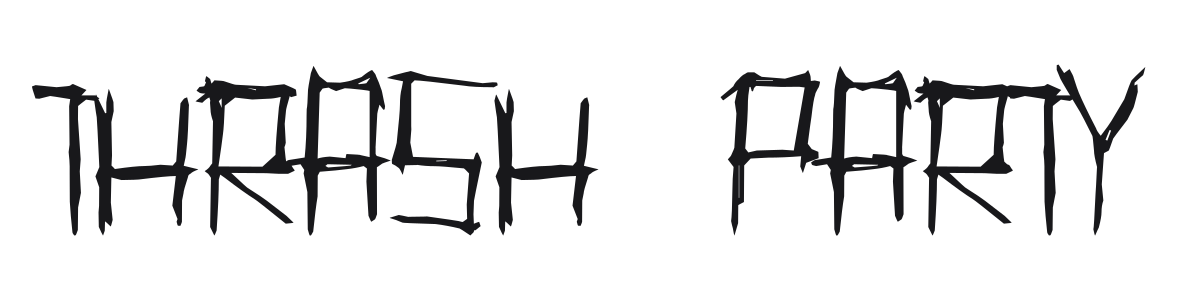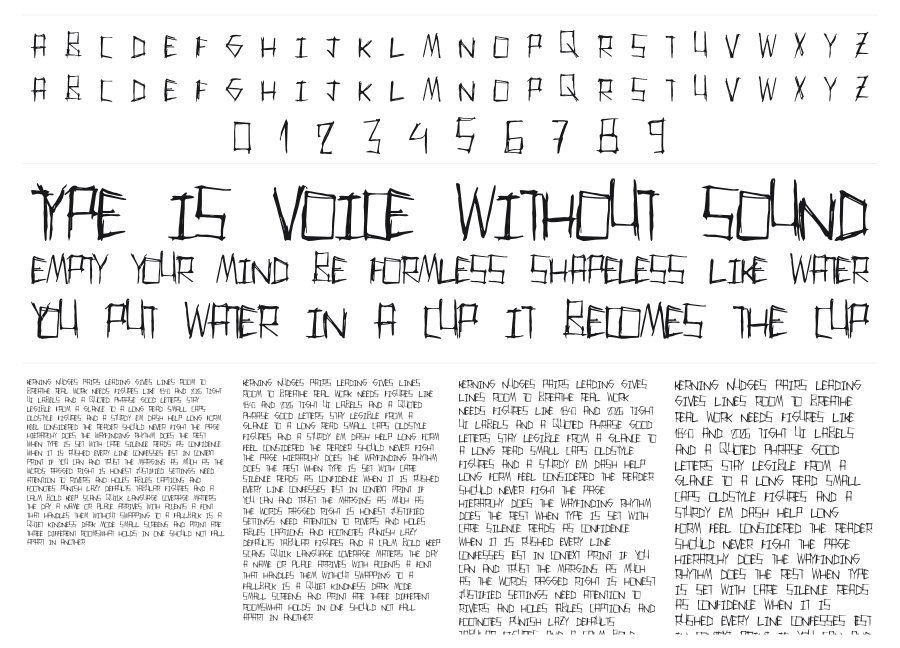
Thrash Party
Thrash Party is a distressed display font built from scratchy, fractured strokes that look torn from a piece of damaged cardboard or scrawled with a broken implement. The letters hold together beneath the surface noise with a rough geometric structure, keeping them readable at headline sizes despite the chaos. It belongs to zines, metal posters, horror titles, and anything that needs to feel genuinely rough.